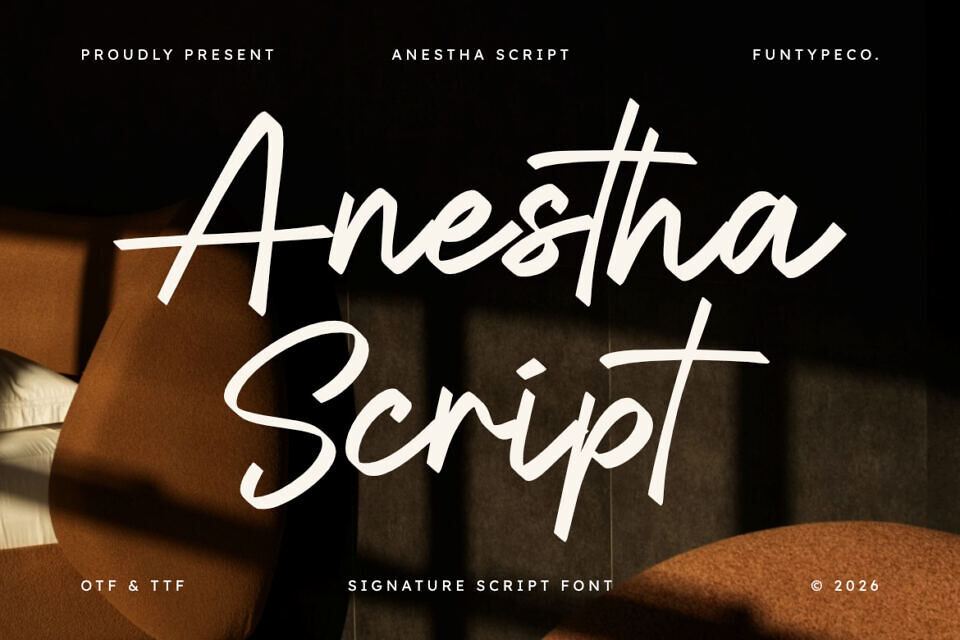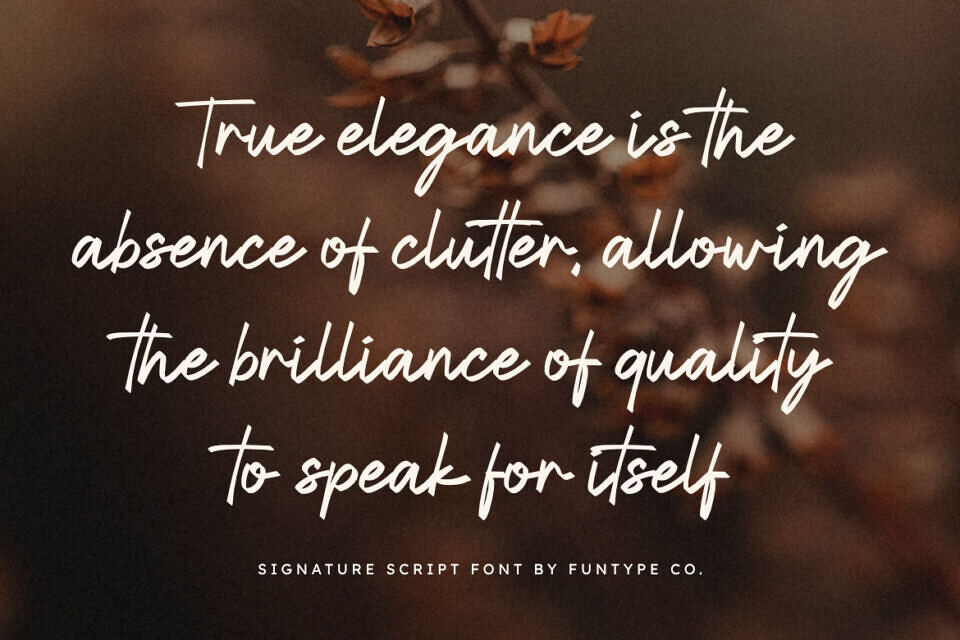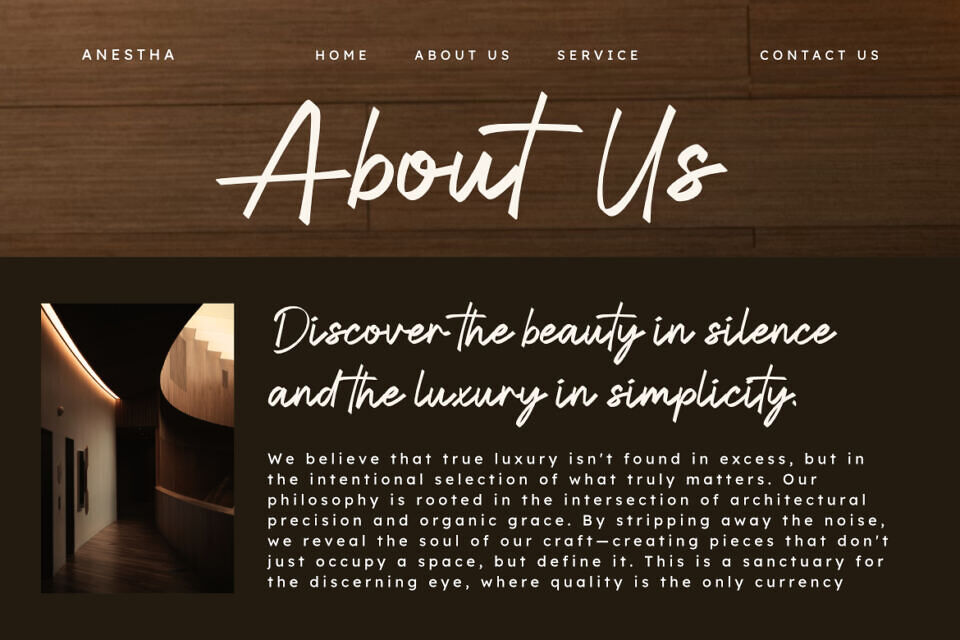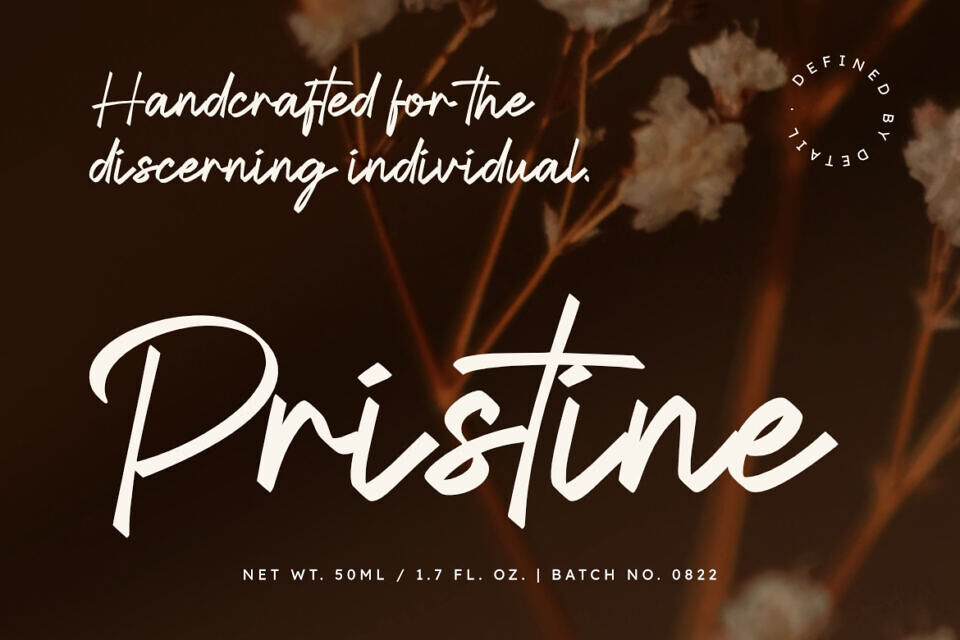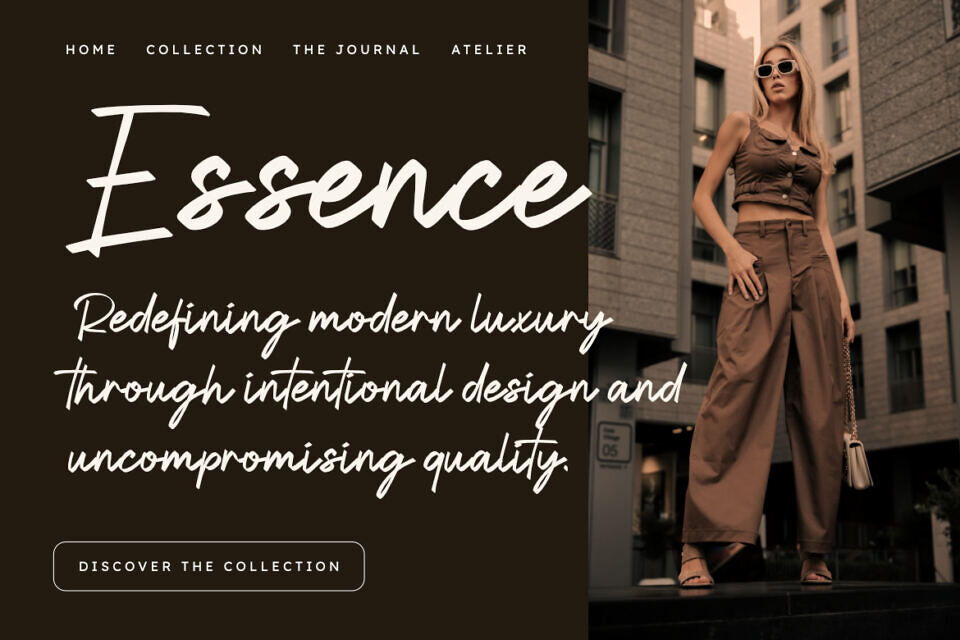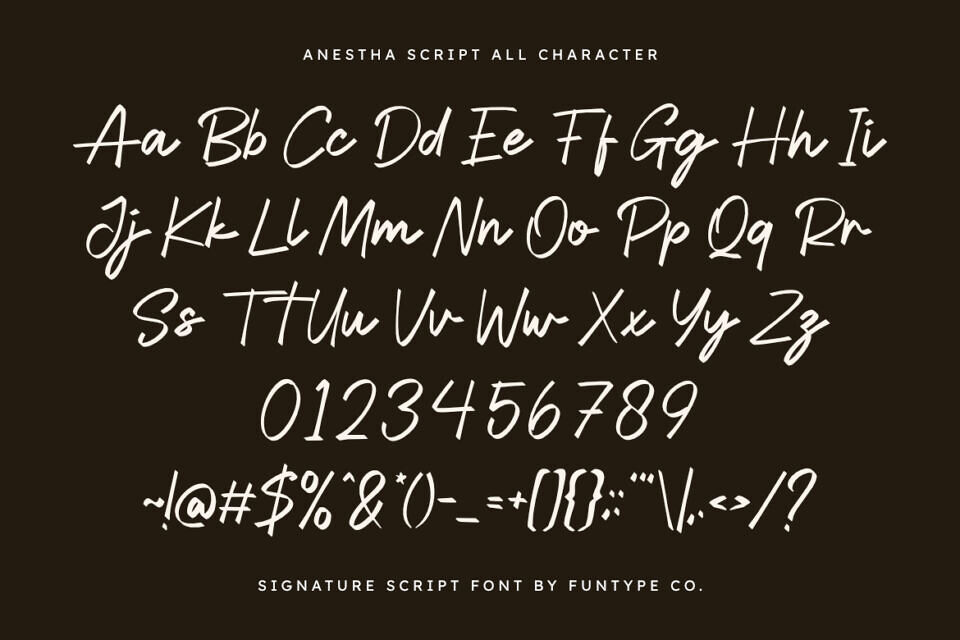
Anestha Script Font
Anestha Script is a powerful and expressive handwritten font, designed to give your creative projects a touch of authentic confidence. With its bold strokes and natural flow, Anestha captures the essence of a modern signature, making it a standout choice for brands that want to convey personality and style.
Whether you are working on high-impact branding, stylish social media content, or professional photography watermarks, Anestha Script provides the versatility needed to create a lasting impression.